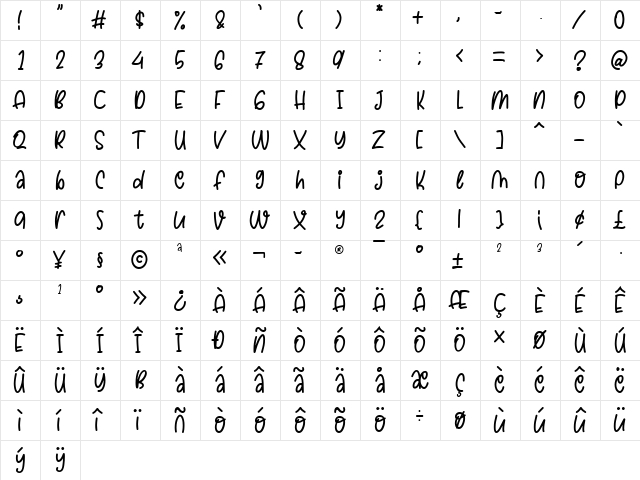
Grateful Monday Regular
Design Context for Grateful Monday Typeface
Grateful Monday is a composed and adaptable typeface that performs quietly and consistently across a wide range of design contexts.